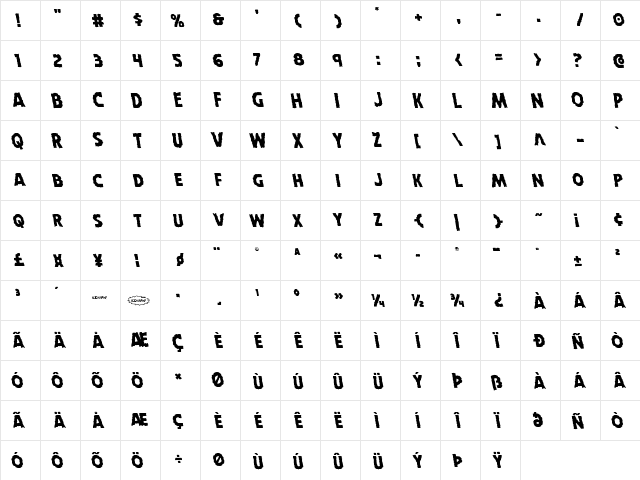
Horroween Leftalic Italic
Design Context for Horroween Leftalic Typeface
Horroween Leftalic is a composed and adaptable typeface that performs quietly and consistently across a wide range of design contexts. The slanted form adds forward momentum and visual energy.
Pro Tip: Try Horroween Leftalic for annotation and caption copy alongside an upright companion — the contrast in angle creates a dynamic but ordered typographic system.